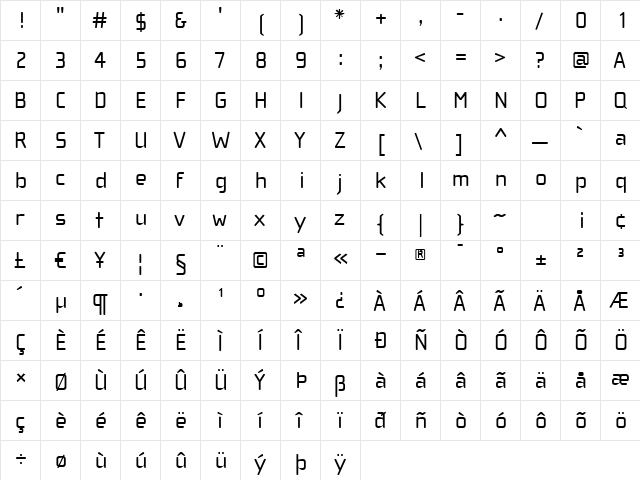
ChollaWide Regular
| Foundry | Emigre |
| Designer | Sibylle Hagmann |
Design Context for ChollaWide Typeface
ChollaWide takes a measured approach to typography — its balanced proportions and neutral character make it a reliable workhorse for both digital and print work.